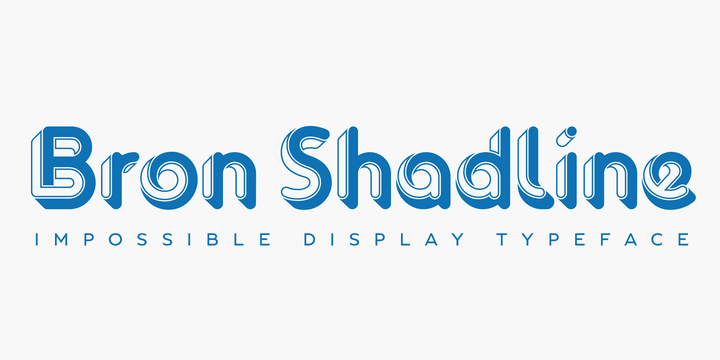
Bron Shadline
Bron Shadline is the semi-outline and lighter variation of the original Bron typeface. The outline adds an extra vibrancy, more contrast and bring a special shading effect out. The Shadline version has also two separate layered fonts to make your own multi-color compositions. Possibilities of editing the font are infinite : even use Bron Black Two Color One to add an extra third layer. These can be used separately to create even more subtle effects. Bron Shadline is packed with an extended character set, supporting Central, Western and Eastern European languages.